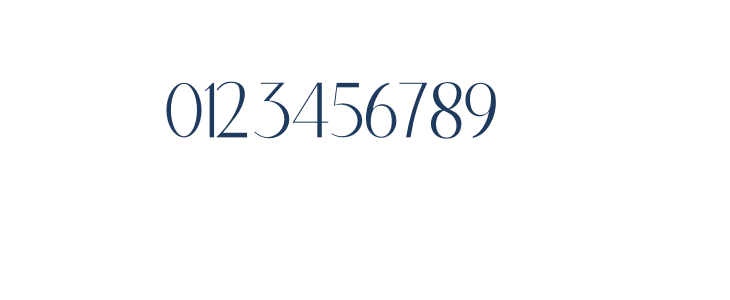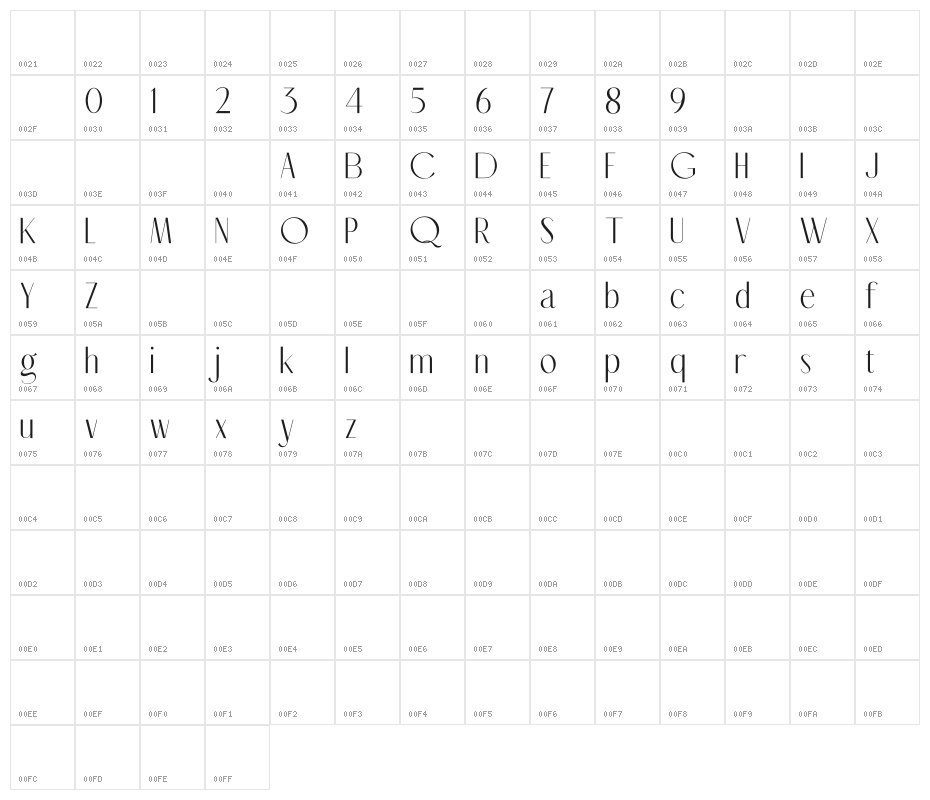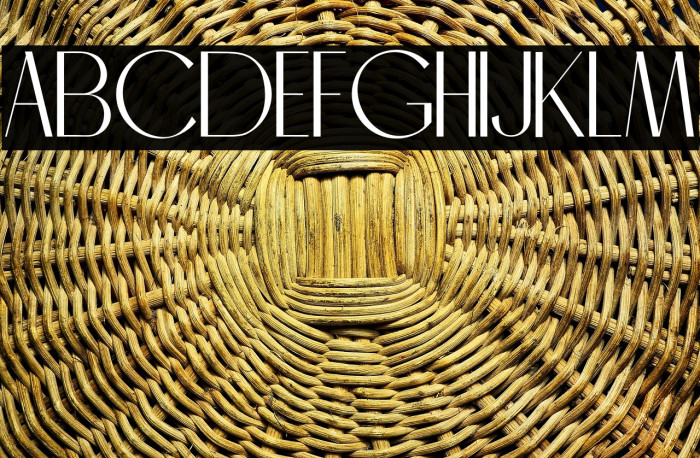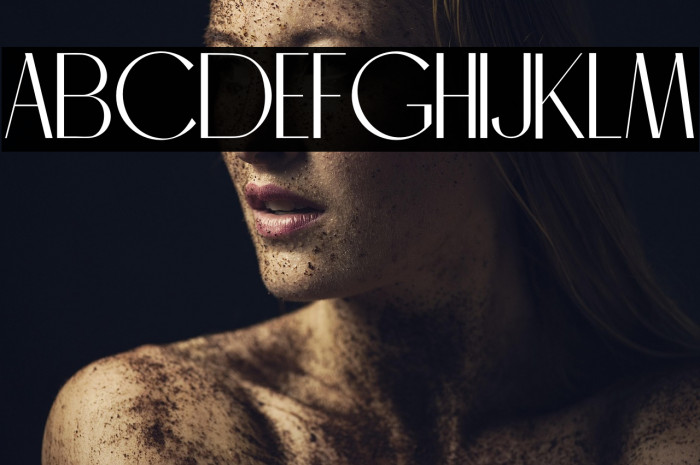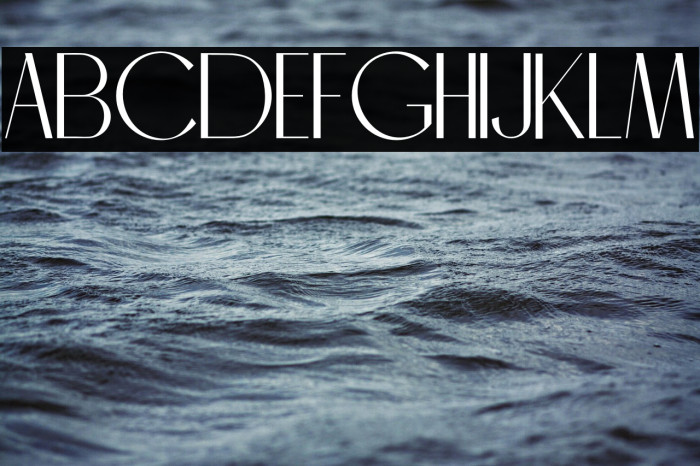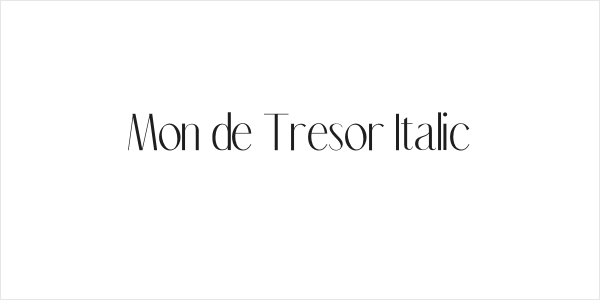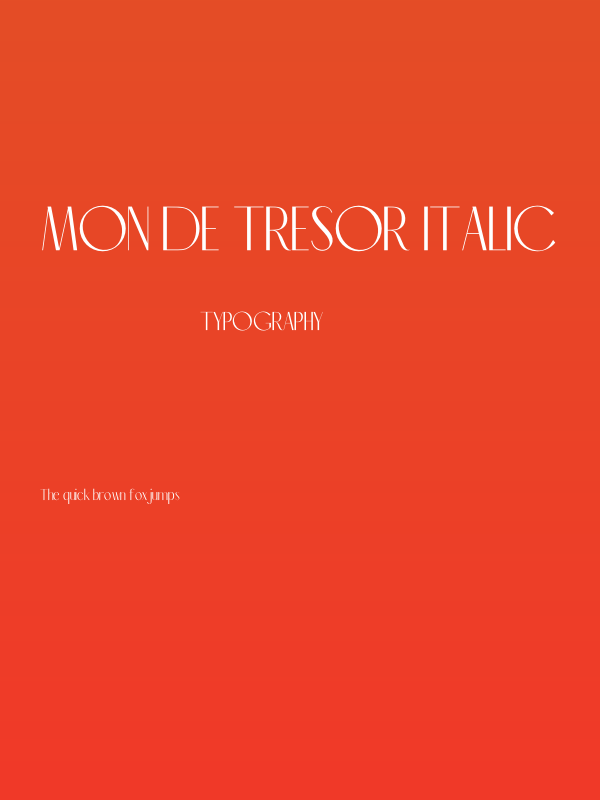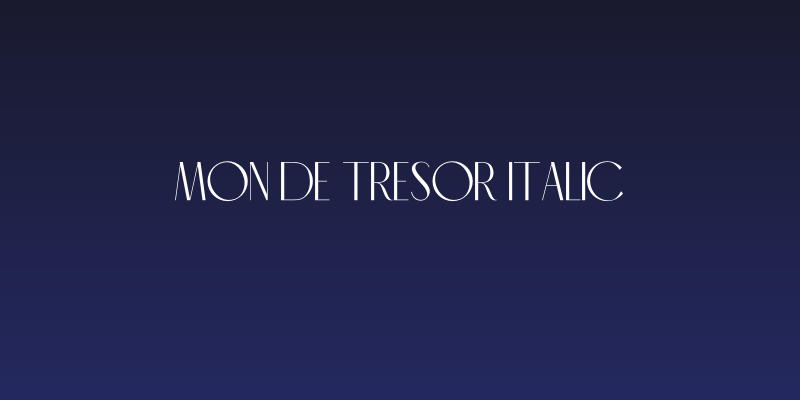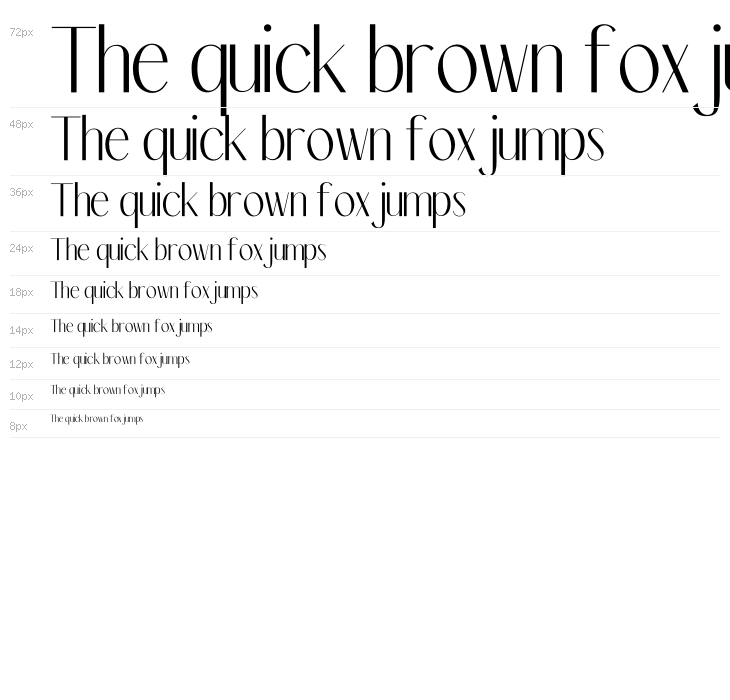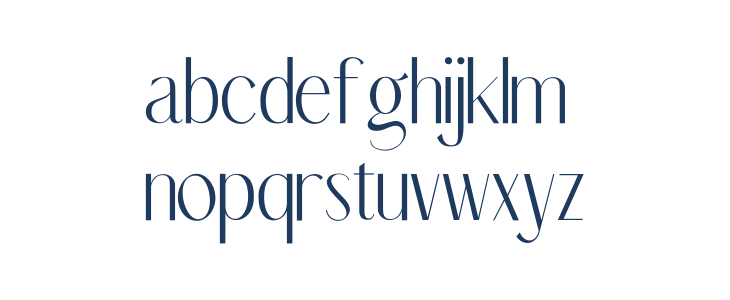
Mon de Tresor Italic Font
Mon de Tresor Italic Description
This font features a sleek and elegant design with a modern twist. The characters are tall and narrow, with a slight slant that adds a touch of sophistication. The strokes are thin, creating a high contrast between the thick and thin parts of the letters. The uppercase letters are particularly striking, with unique flourishes on certain characters like 'Q' and 'R'. The lowercase letters maintain a consistent style, offering a harmonious blend with the uppercase set. Numbers are designed with the same elegance, making them suitable for stylish headings or artistic projects. The special characters are crafted to match the overall aesthetic, ensuring a cohesive look across all text elements.
Overall StyleModern, Elegant
Use CaseHeadlines, Logos, Invitations
Proposed ProjectsIdeal for fashion magazines, luxury branding, elegant invitations, and artistic posters.